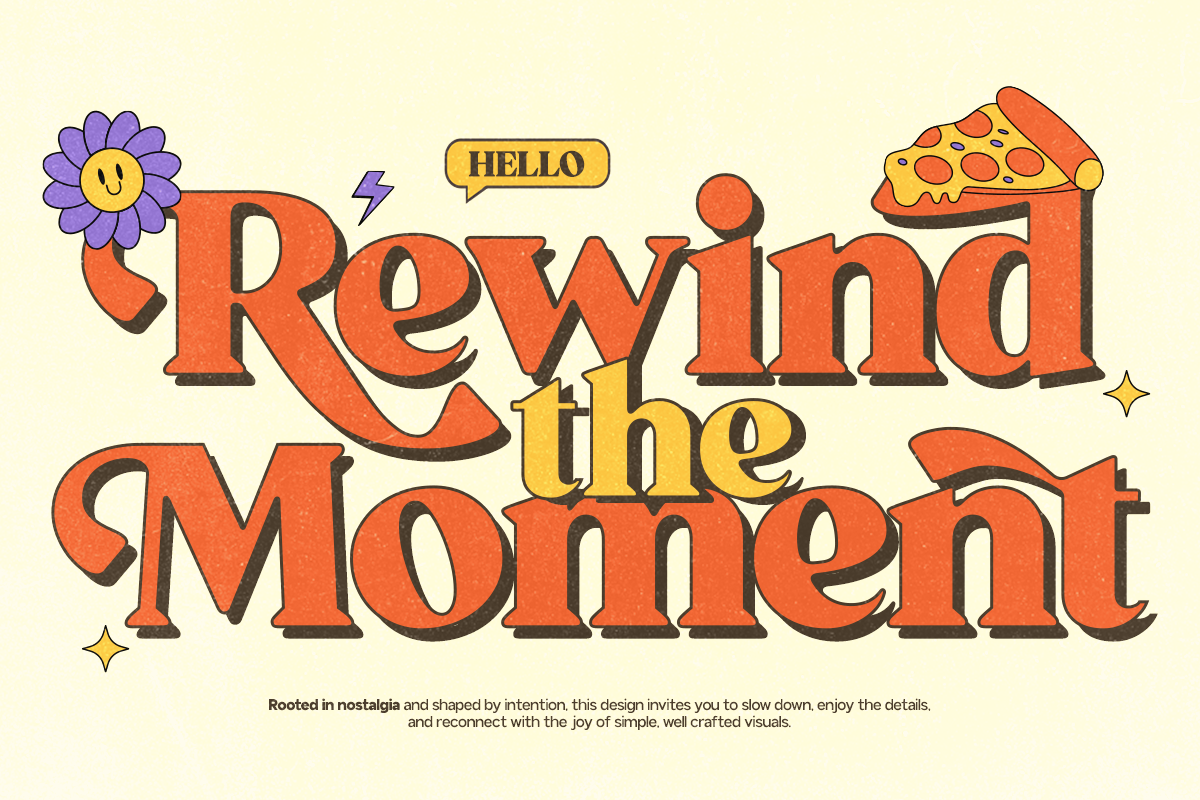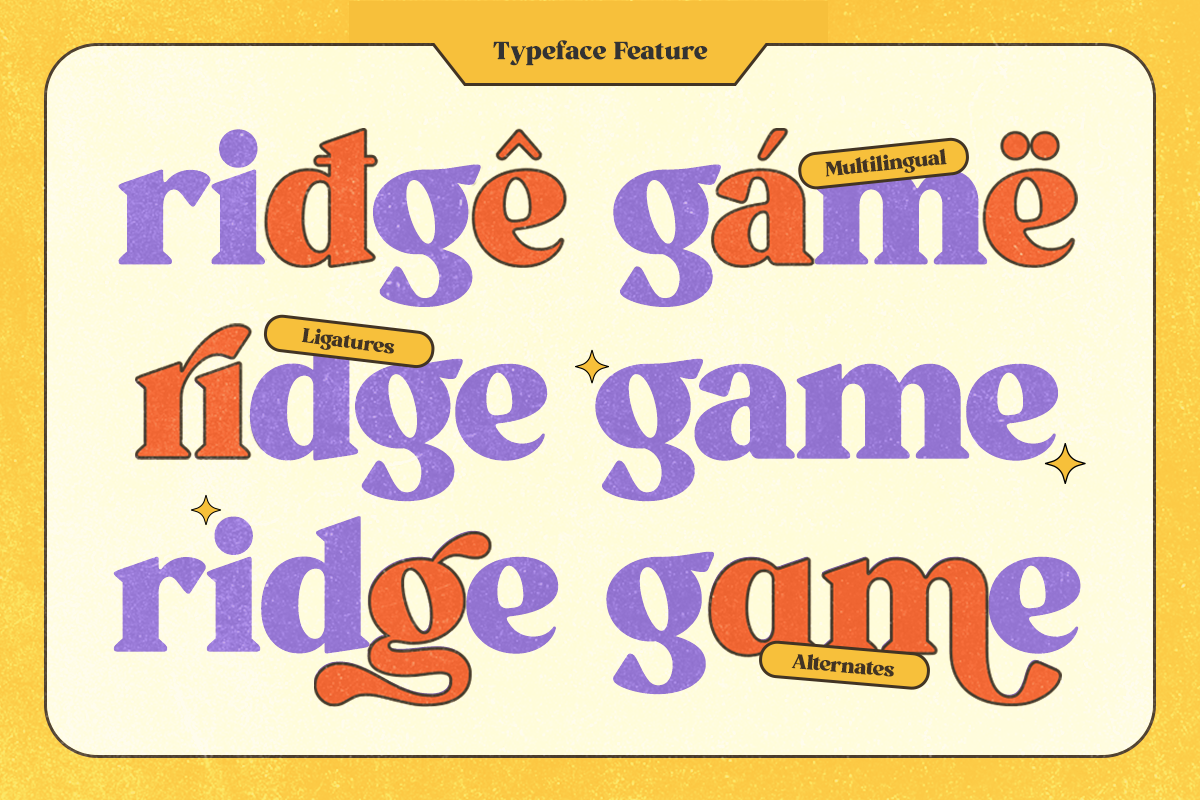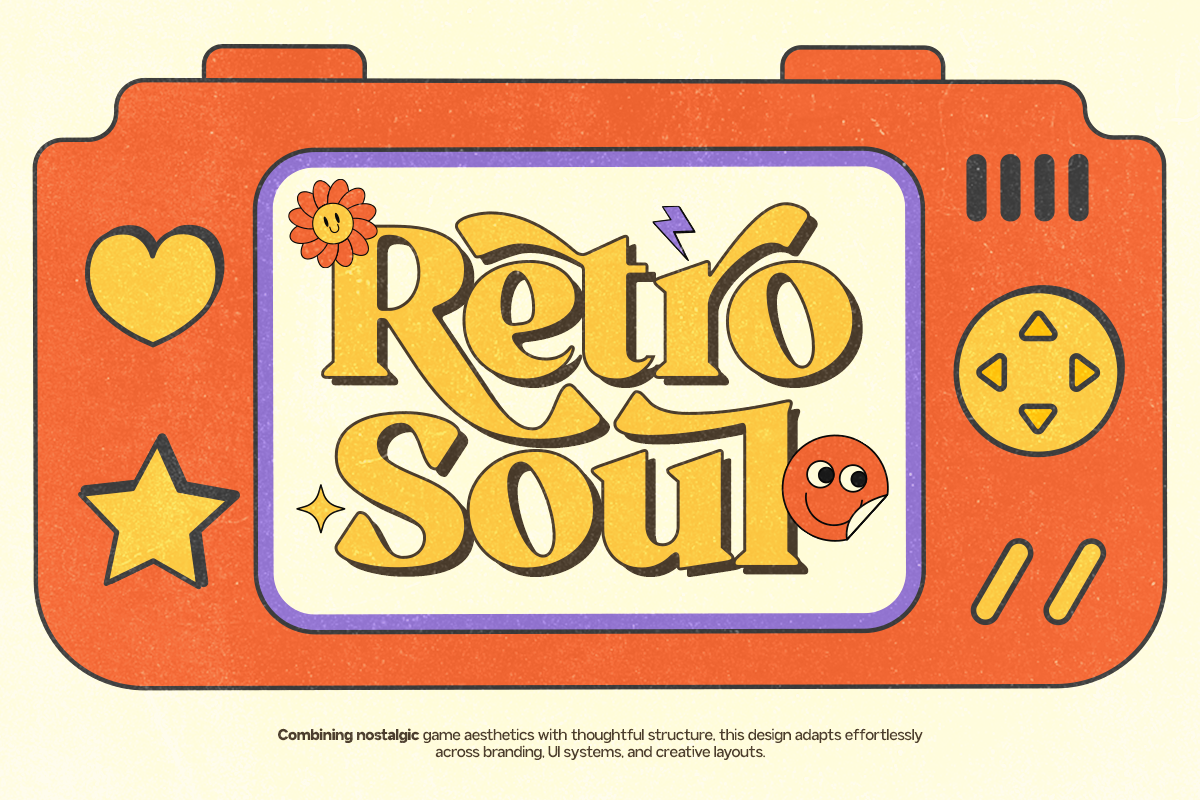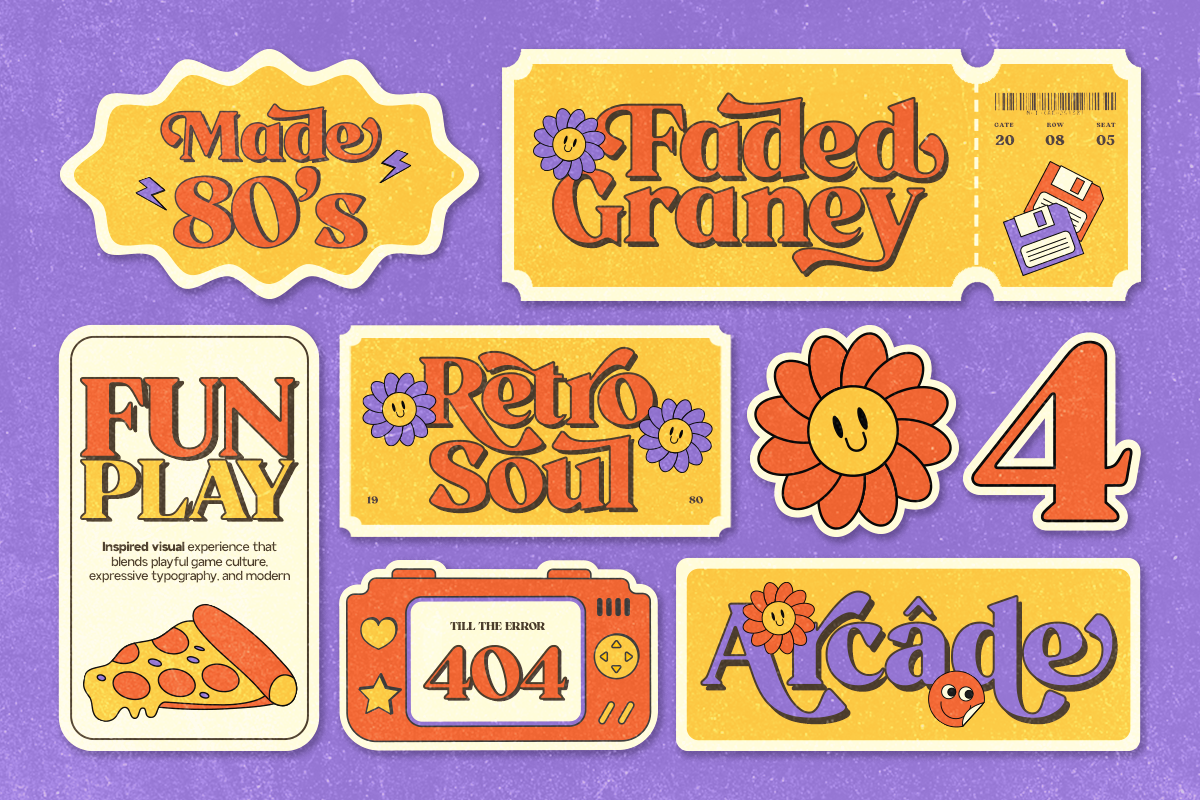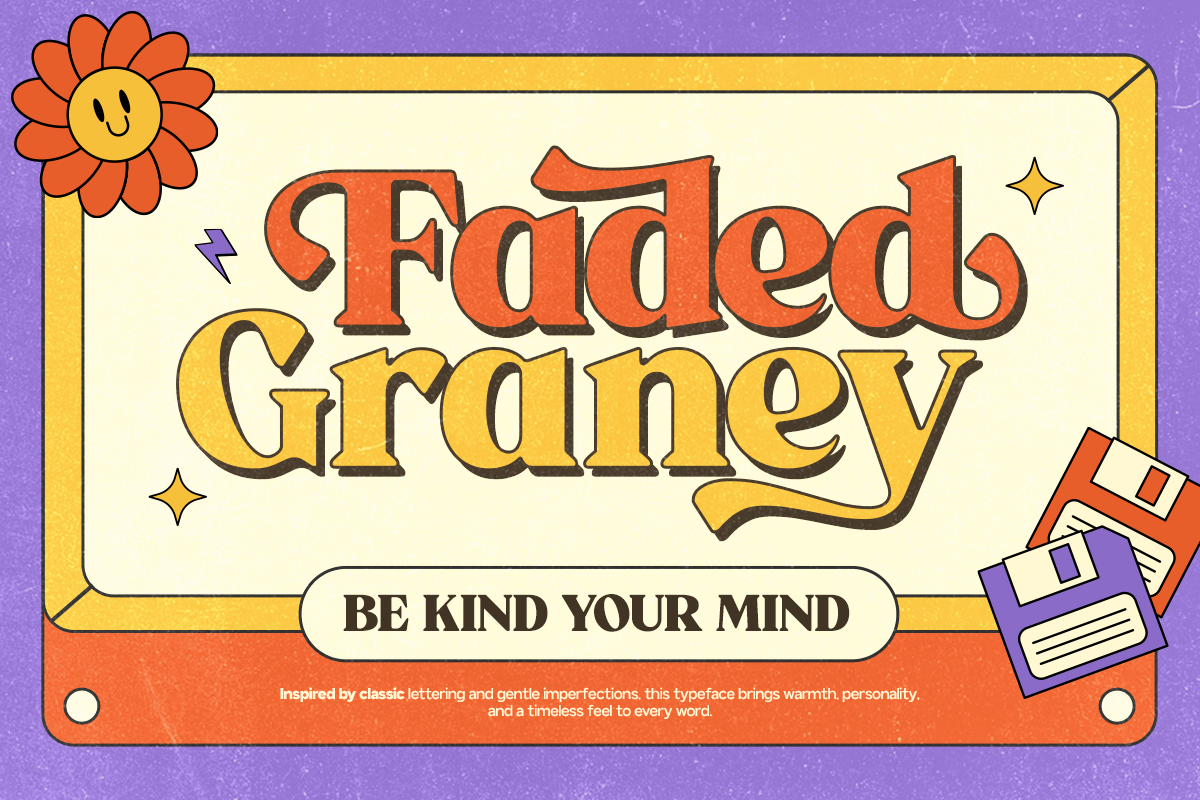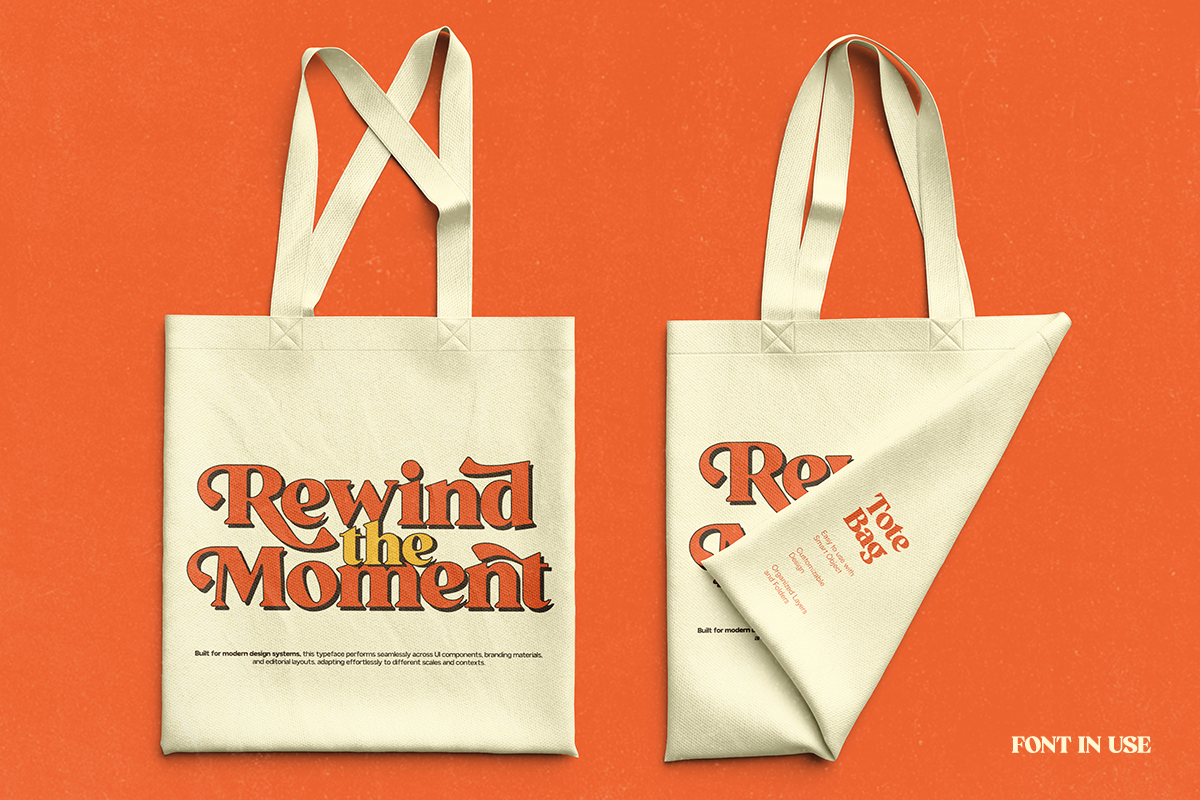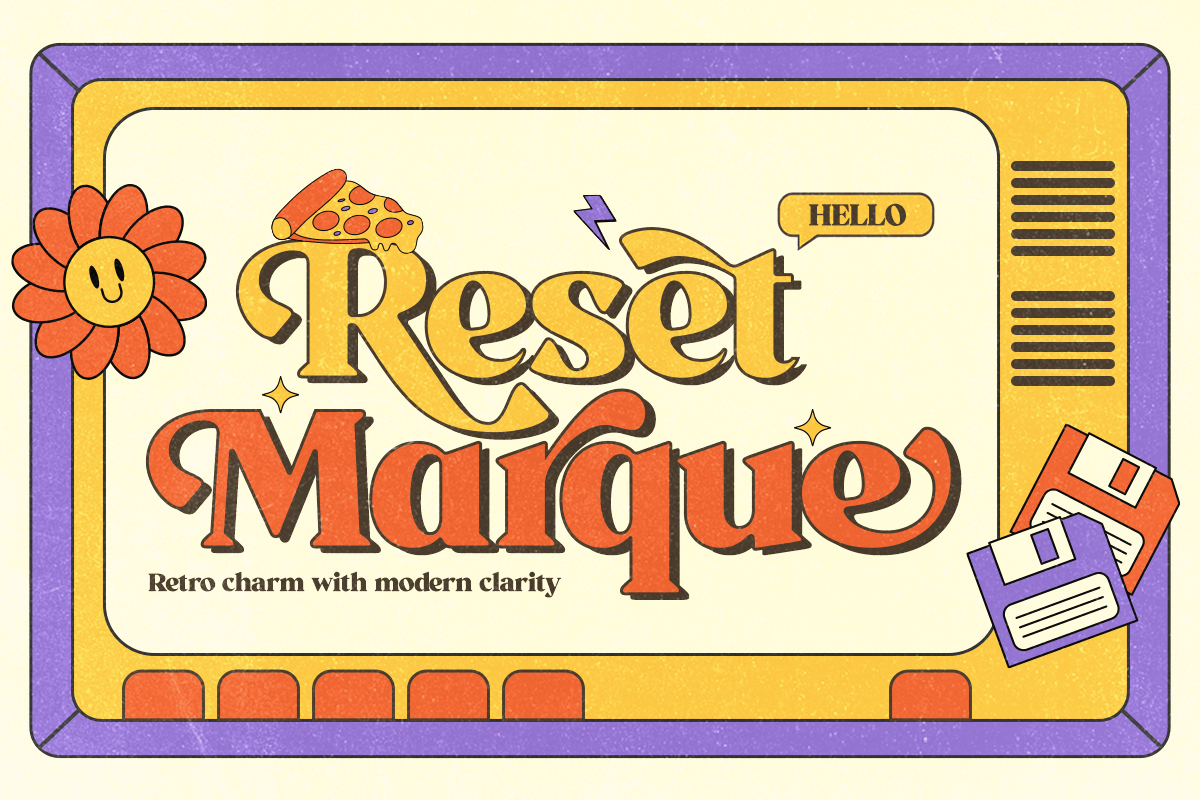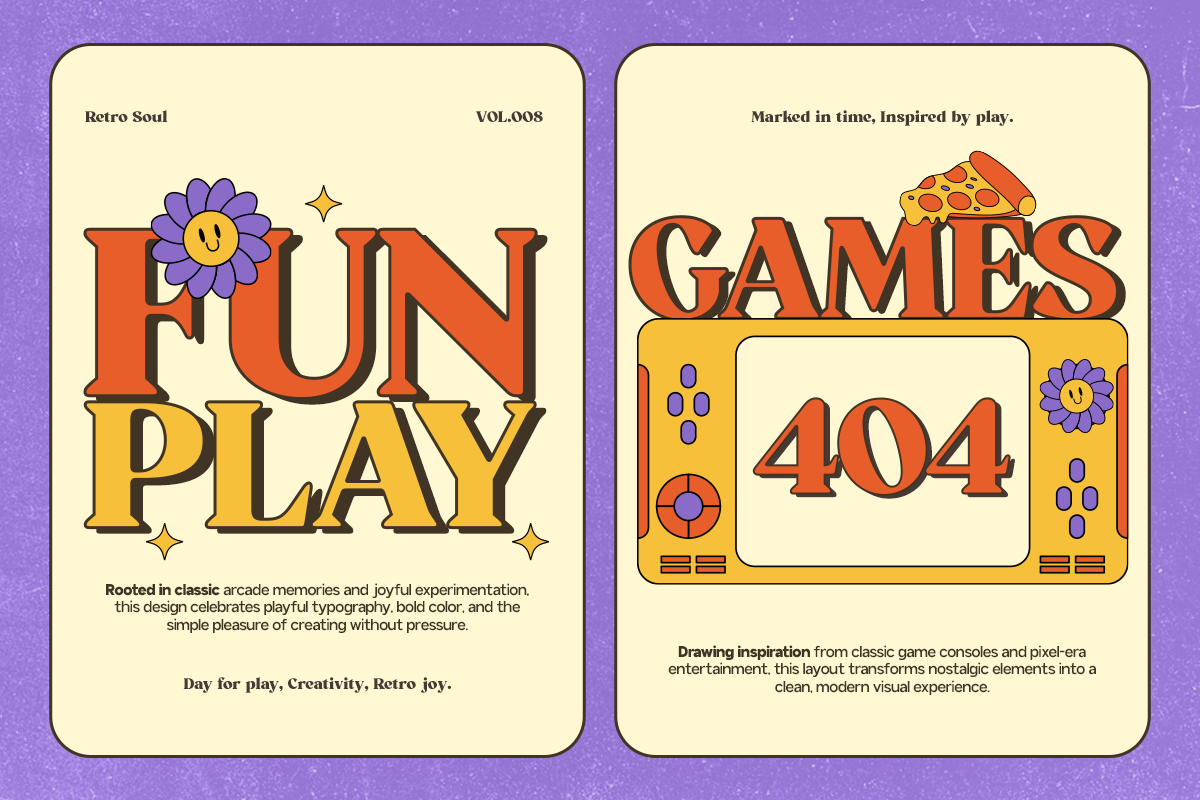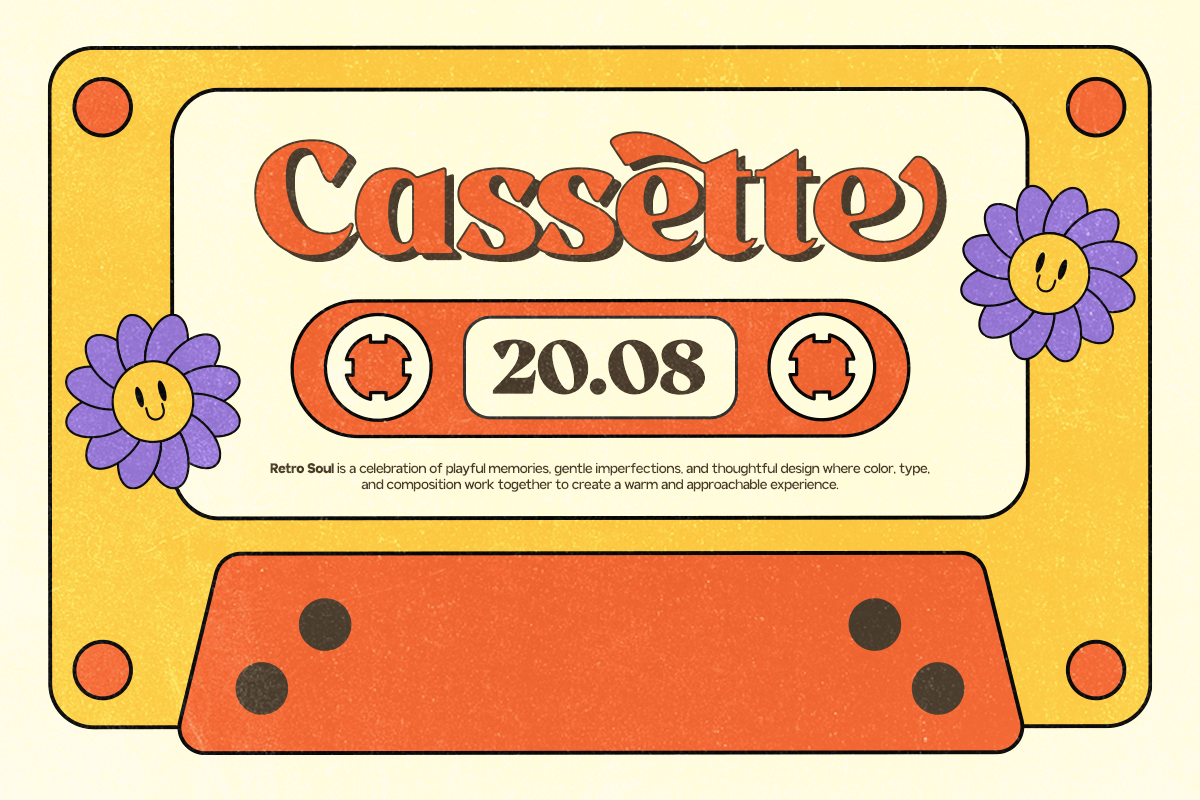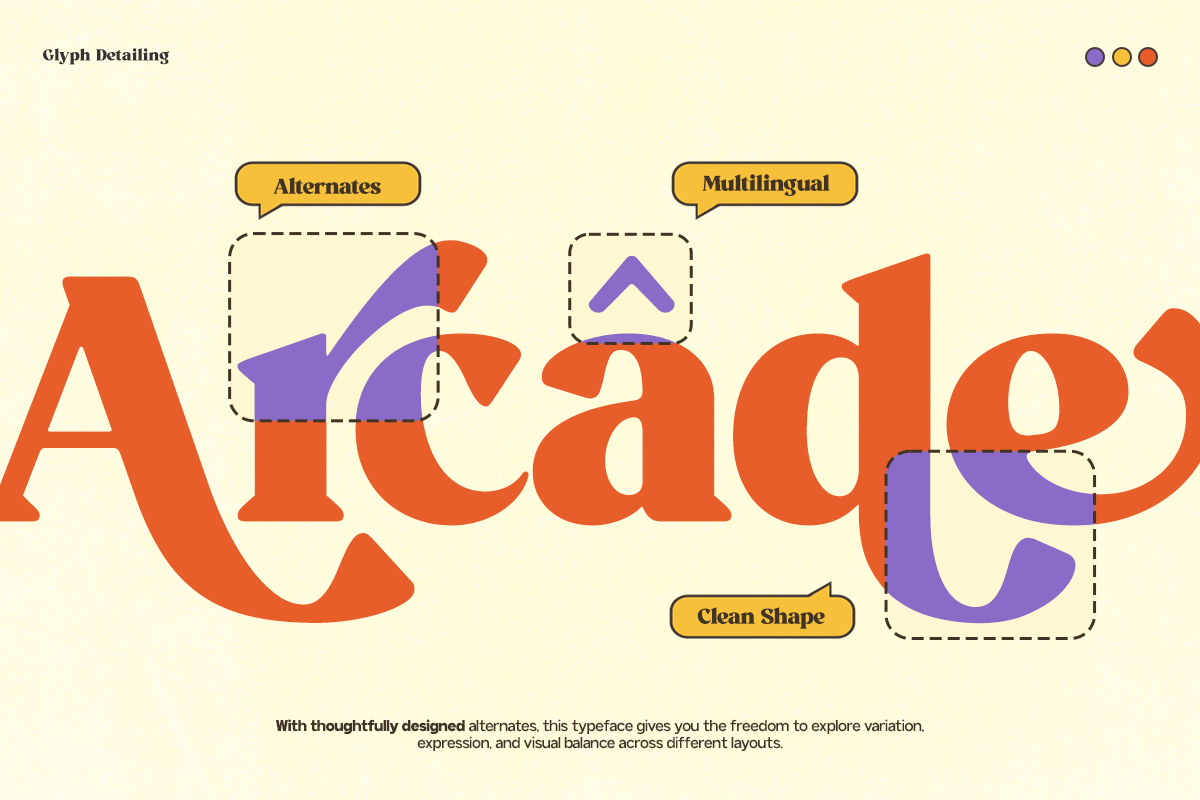
GC Milky Shine - 80's Serif Retro
GC Milky Shine – 80’s Club Retro Serif is a vibrant retro serif typeface inspired by the playful vintage of 1980s nightlife, disco posters, and club-era fashion. With bold curves, confident contrast, and a playful vintage attitude, this font brings instant energy and nostalgic charm to any design.
Designed to capture the shine, rhythm, and personality of the 80’s, GC Milky Shine is perfect for retro branding, music covers, event posters, editorial headlines, fashion campaigns, packaging, and expressive visual identities. Its strong letterforms and smooth details create a striking presence—whether you’re building loud headlines or stylish vintage compositions.
- Retro Serif Construction
- Multilingual Support (170+ Languages)
Bring neon nostalgia, bold confidence, and timeless retro sparkle to your typography with GC Milky Shine – 80’s Club Retro Serif.